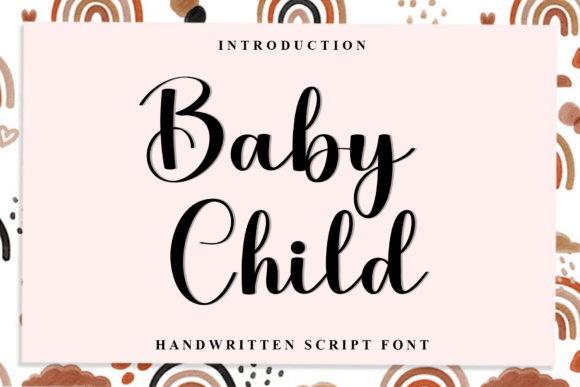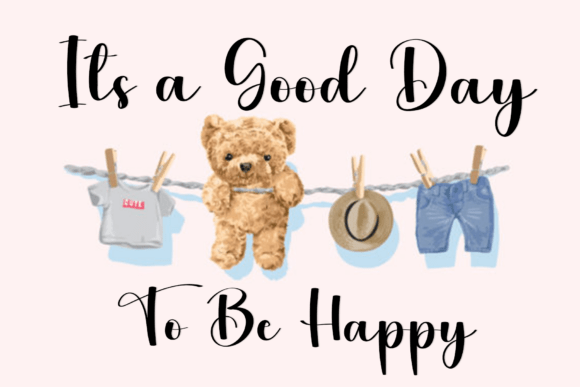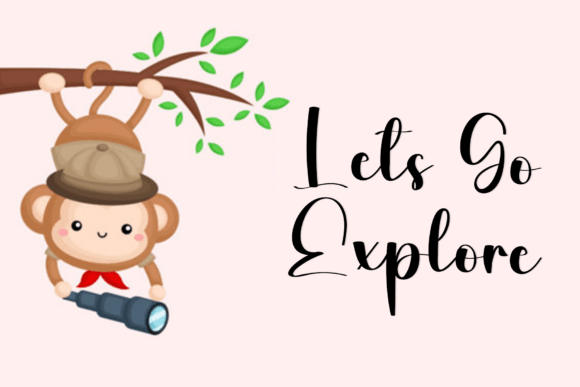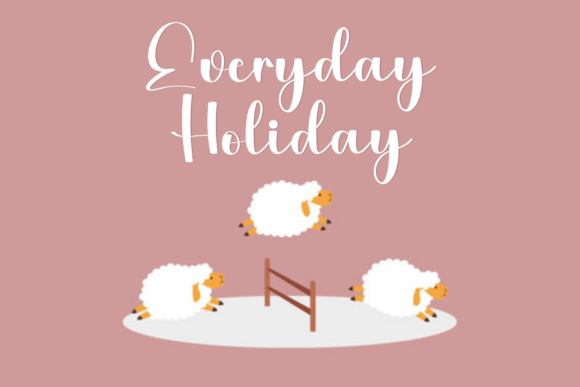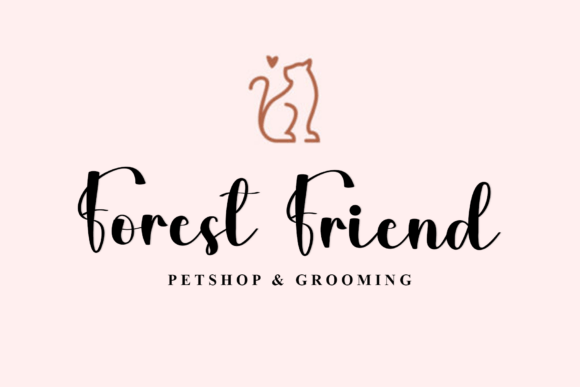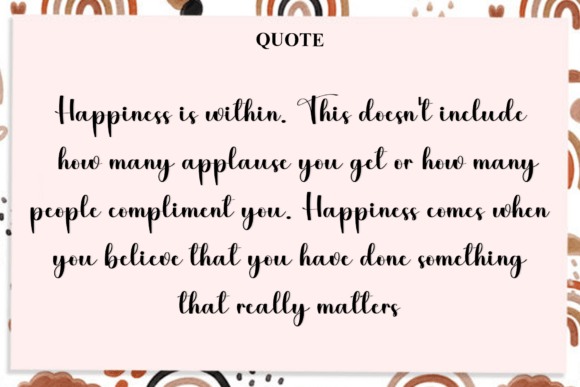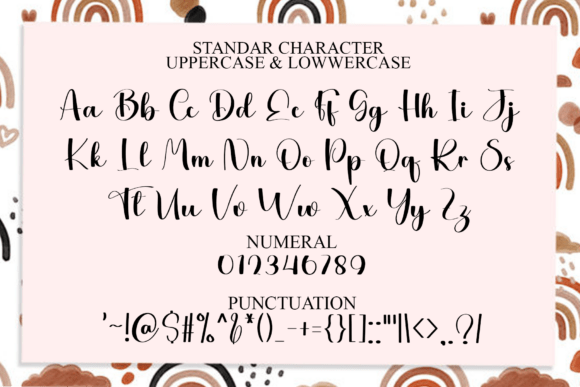
The Joy of Creating with Baby Child Font
Who hasn’t experienced that moment when you’re brainstorming ideas for a new project, and suddenly, a spark of creativity ignites? The possibilities seem endless, and the excitement is palpable. For designers, this feeling is a regular occurrence, and it’s what drives us to create something truly special. That’s where the Baby Child Font comes in – a casual and creative typeface that exudes warmth and friendliness.
Perfect for personal projects, invitations, and social media graphics, Baby Child Font’s round, playful strokes create a relaxed and approachable feel that’s sure to captivate your audience. Its charming, hand-drawn aesthetic adds a fun and unique touch to any design, making it a valuable addition to any designer’s toolkit.
Baby Child Font Key Features
- Unique Characteristics: The Baby Child Font features a playful and whimsical design, making it perfect for use in children’s books, nursery decor, and other projects that require a fun and youthful tone.
- Font Style: This font is a script font, with a flowing and cursive design that adds a touch of elegance and sophistication to any text.
Baby Child Font Review
As a designer, I was excited to dive into the “Baby Child Font” and see what it has to offer. Here are my honest thoughts.
- The font’s playful and whimsical feel is perfect for child-related projects, such as nursery decor, kids’ books, or educational materials.
- The font’s bold and curvy lines make it stand out, adding a touch of elegance and sophistication to any design.
- The font’s extensive character set includes a wide range of symbols and glyphs, making it suitable for various languages and cultural contexts.
- The font’s legibility can be compromised at smaller font sizes, making it less suitable for body text or large blocks of text.
- The font’s design may not be ideal for serious or formal projects, as it can come across as too playful or childish.
- The font’s compatibility with certain font rendering engines or operating systems may be limited, which can result in inconsistent rendering or issues with font display.
While the “Baby Child Font” has its limitations, I believe it’s a great choice for projects that require a playful and whimsical touch. With its elegant and sophisticated feel, it’s perfect for child-related projects that need a dash of fun and personality. However, it may not be the best choice for serious or formal projects. Overall, I’d give it 4 out of 5 stars – it’s a great addition to any designer’s toolkit, but it’s not a one-size-fits-all solution.
Tips for Getting the Most Out of Baby Child Font
For best results, use Baby Child Font in contexts where a playful, childlike feel is desired. This font is particularly well-suited for:
- Children’s book covers and illustrations.
- Baby product packaging and branding.
- Playful advertising and marketing materials.
Baby Child Font is commonly used in the following situations:
- Creating a whimsical and playful atmosphere.
- Designing materials for children’s education and entertainment.
- Developing brand identities for companies that cater to families and children.